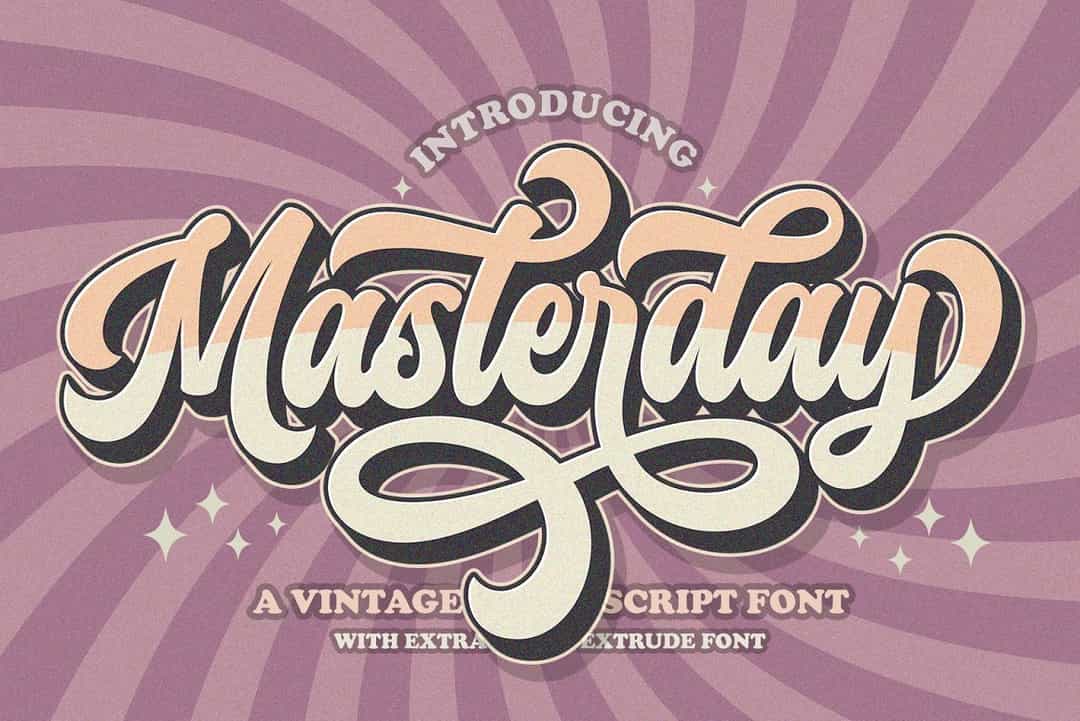
Masterday Font is an eye-catching retro style font, inspired by vintage lettering and typography from the 70’s and 80’s; featuring both rough and clean styles in its typography style. Perfect for badges logos t-shirts packaging posters branding book covers as well as retro vintage designs!